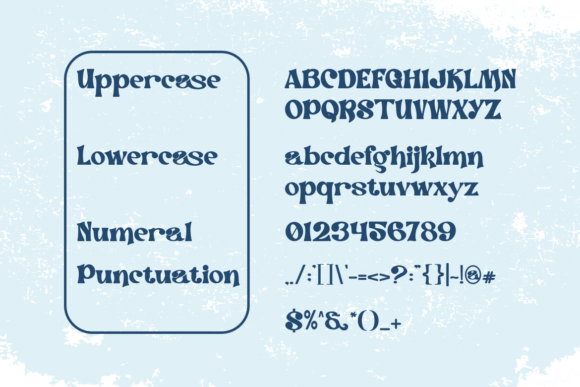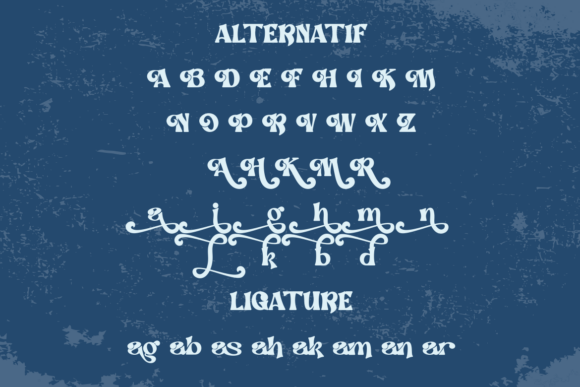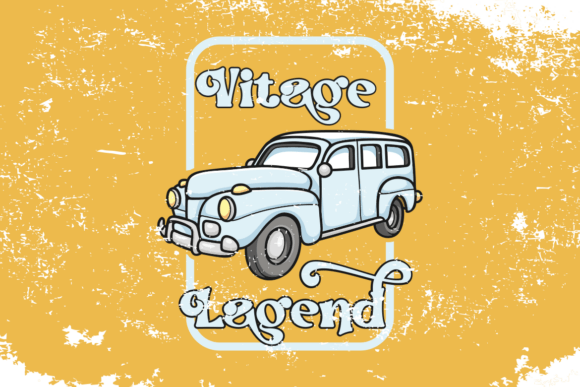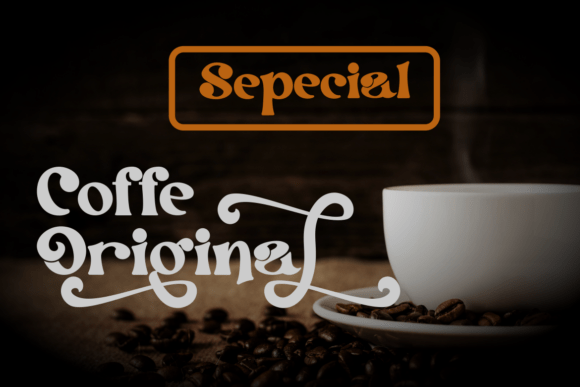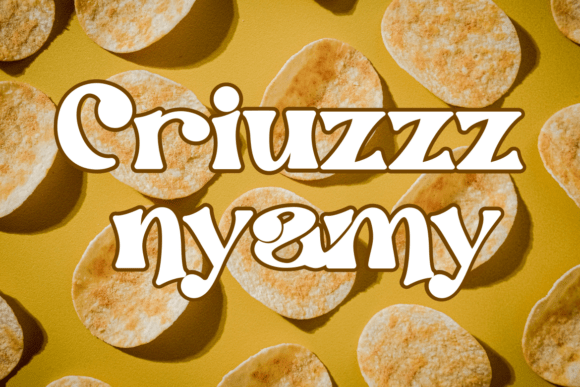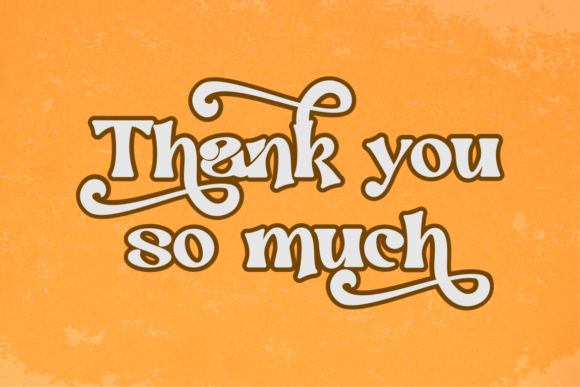
Introduction to Ramble Magnum Font
Channeling pure retro flair, Ramble Magnum is a bold serif display font with exaggerated swashes and vintage curves that scream personality.
Inspired by 70s car culture and classic Americana, this font is perfect for retro posters, T-shirt designs, album covers, and nostalgic branding Its dramatic ligatures and sweeping strokes bring bold character and groovy energy to any layout.